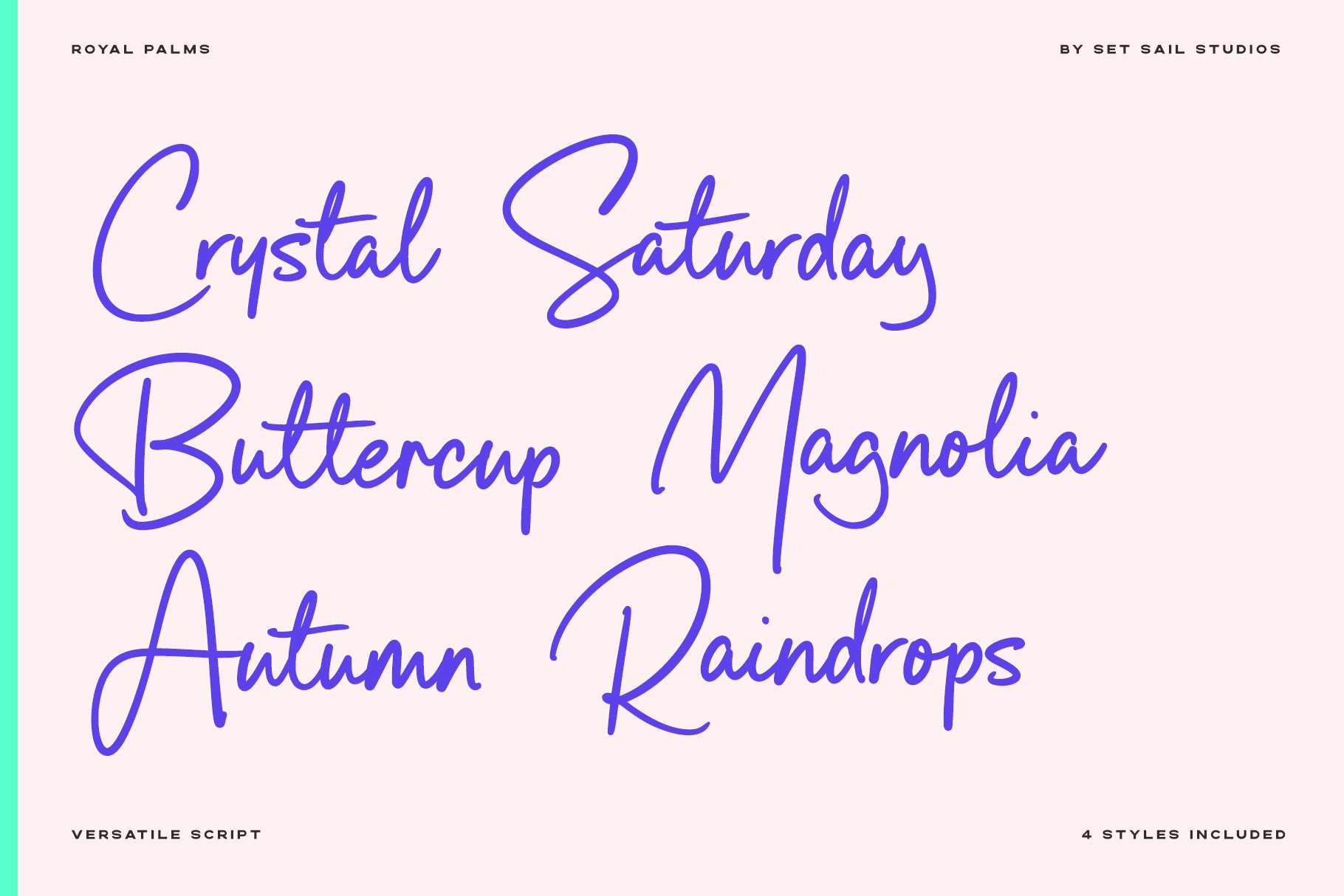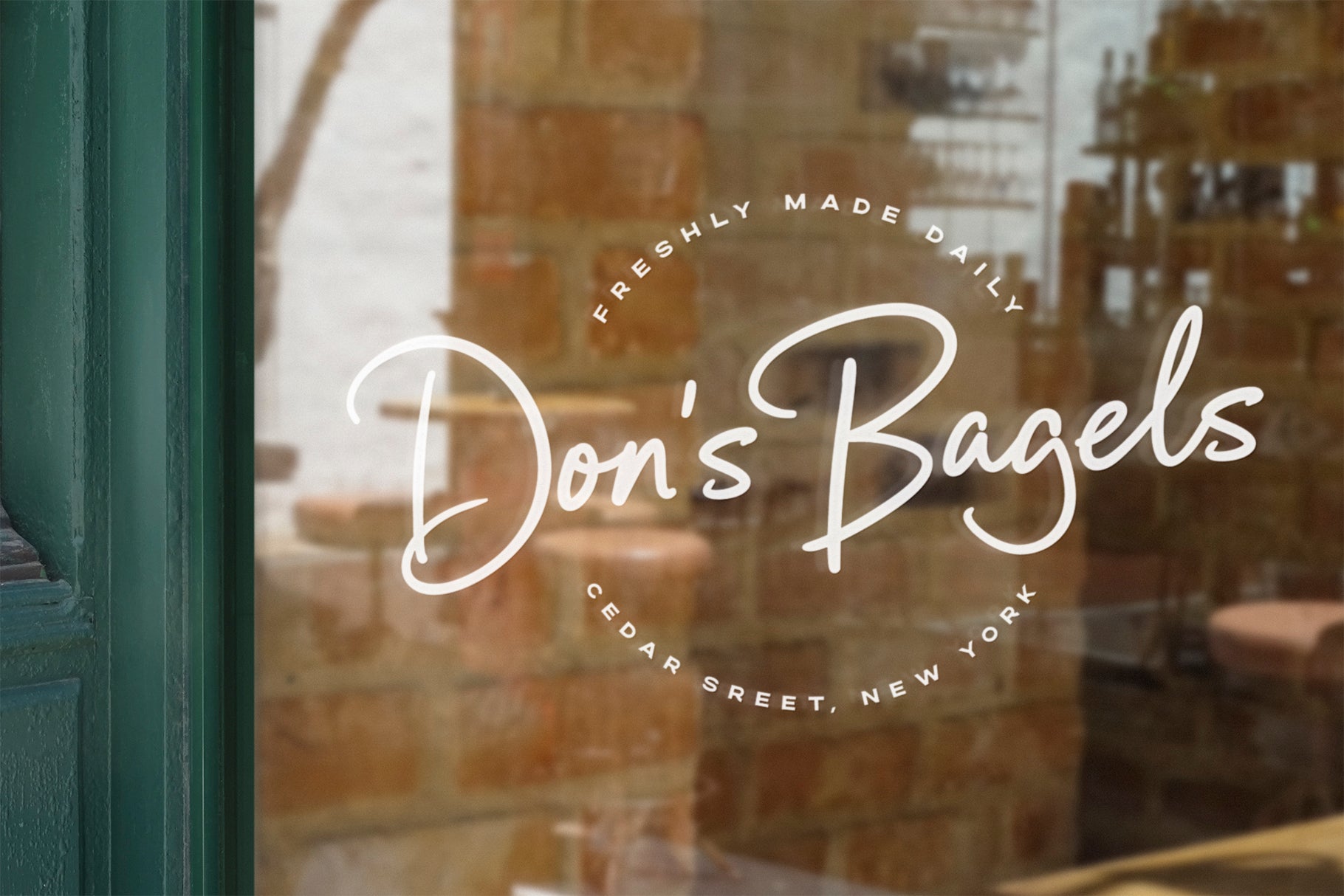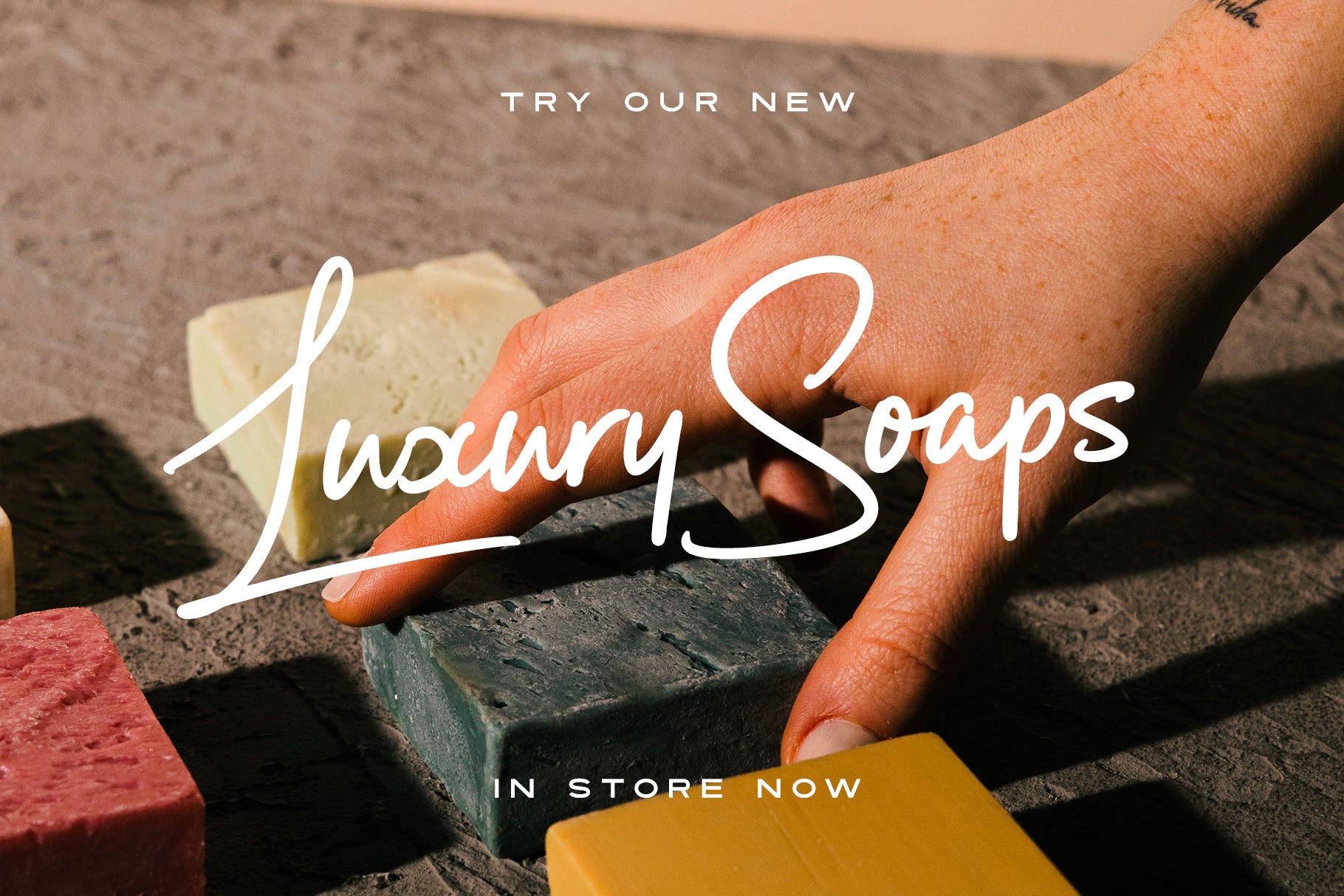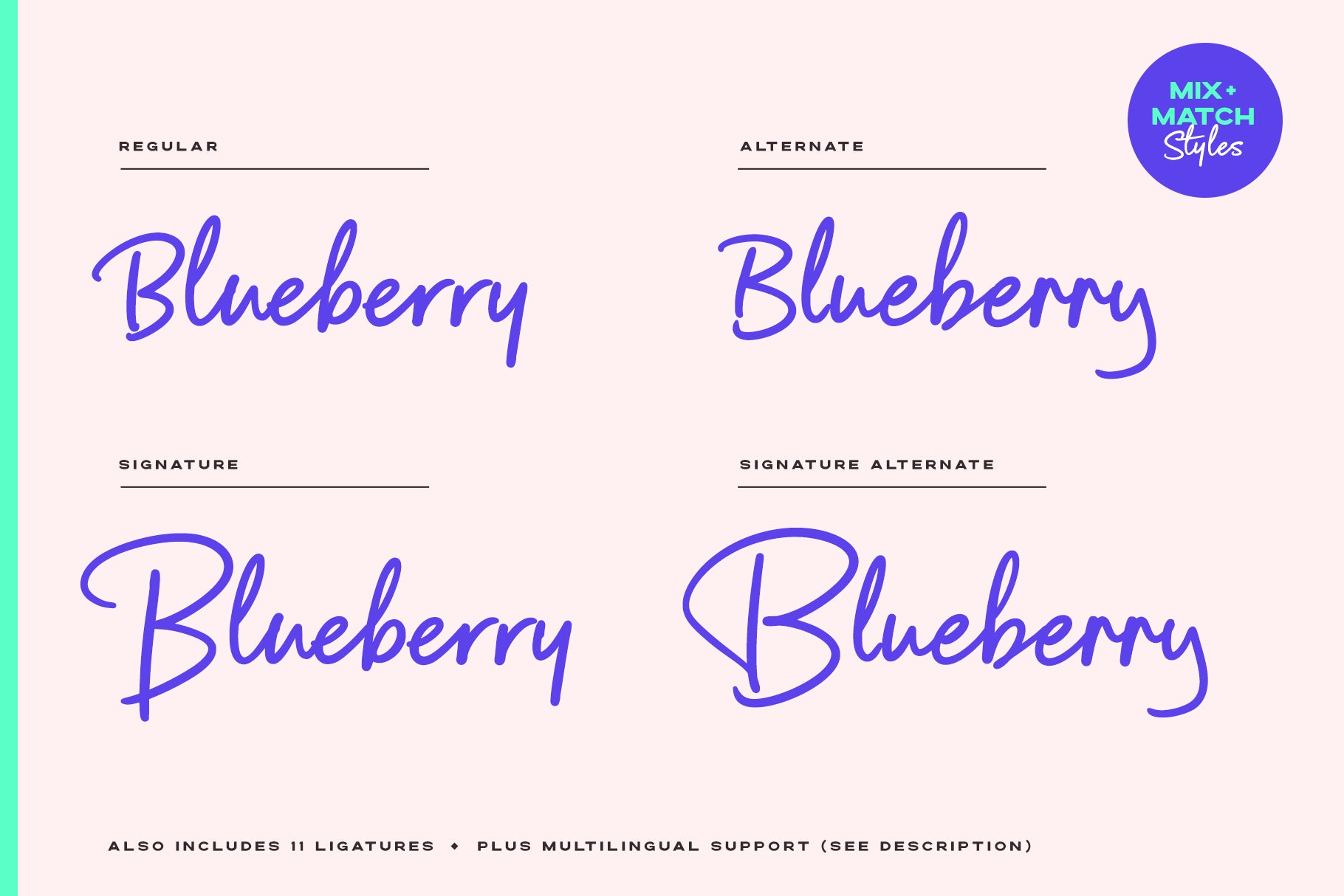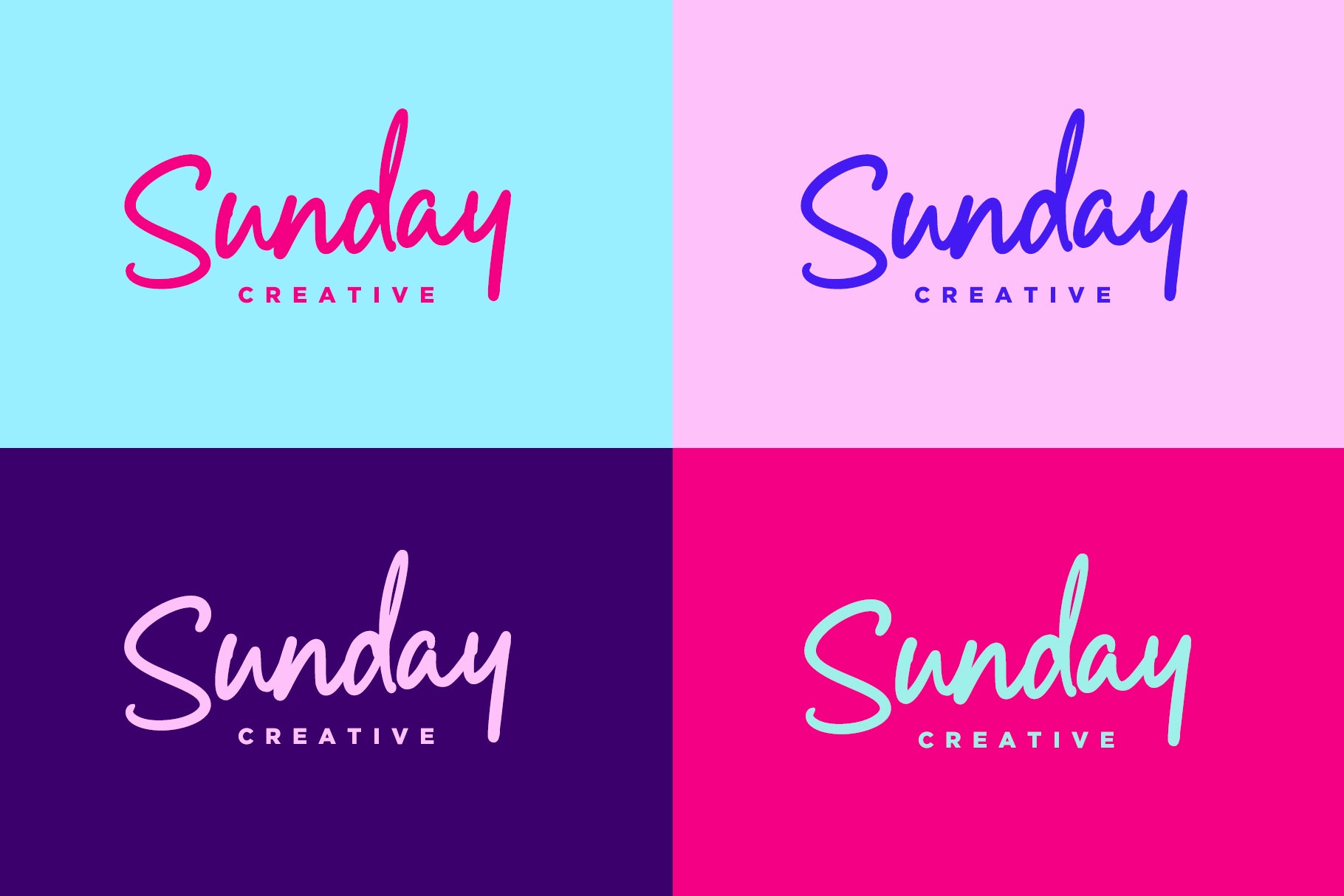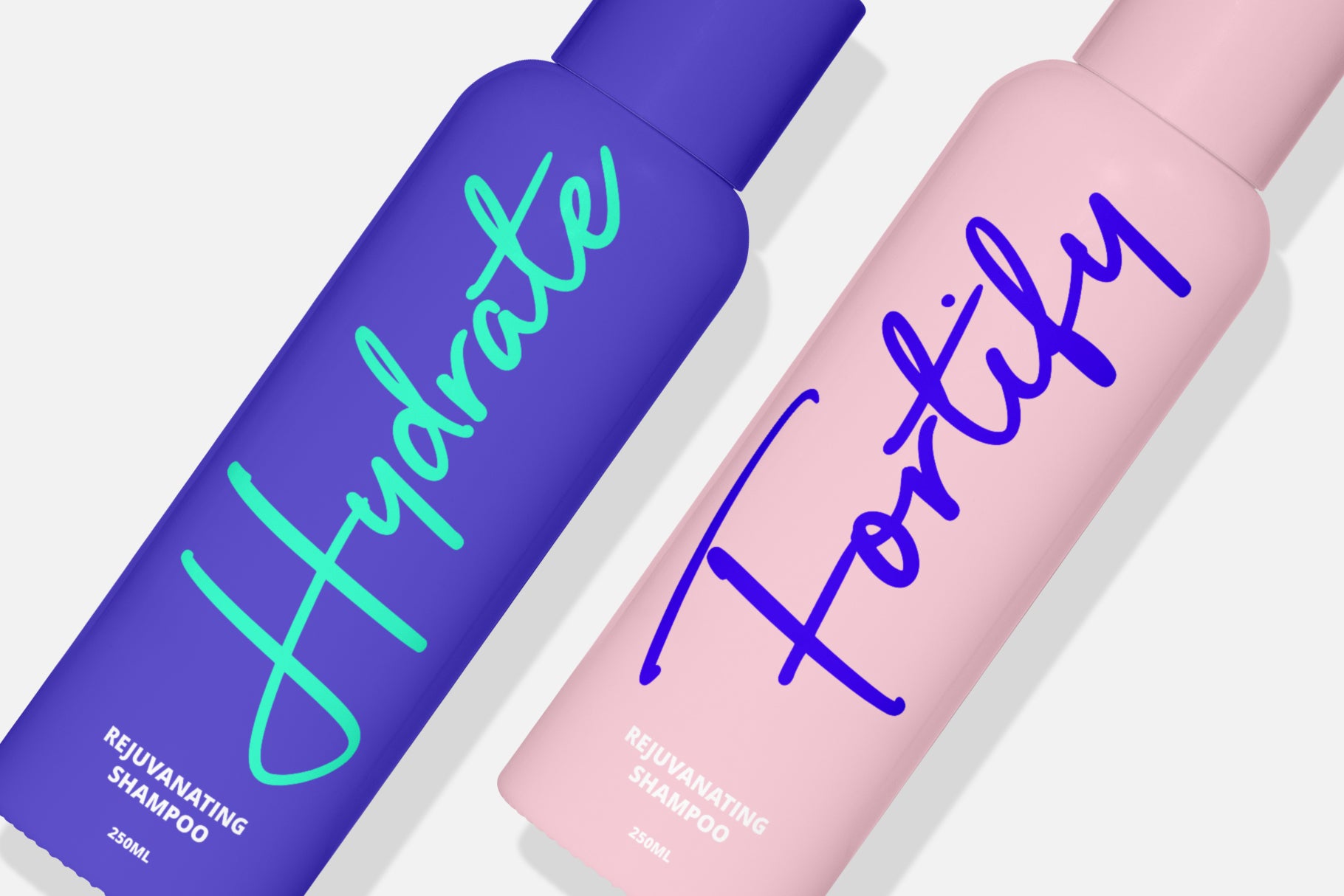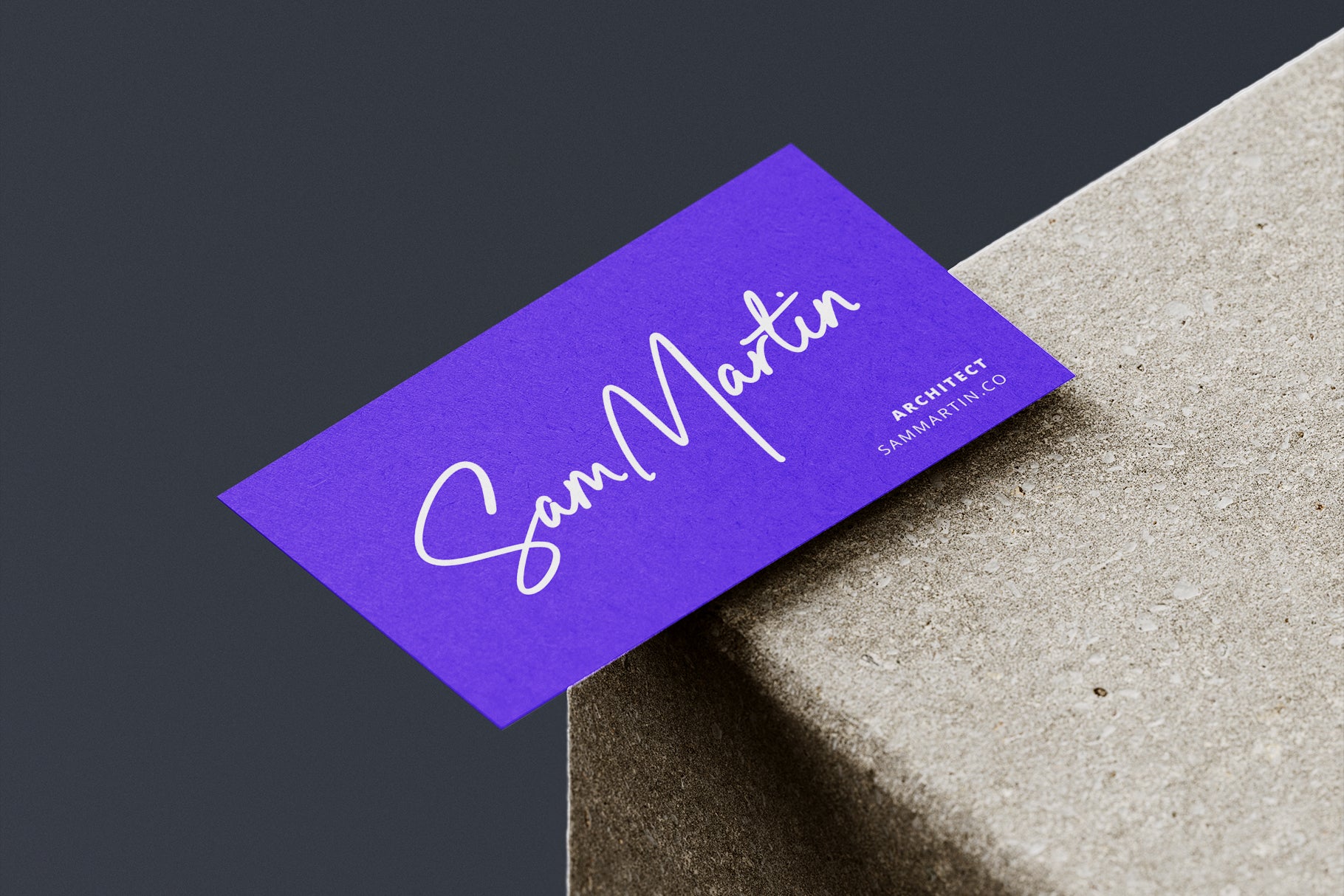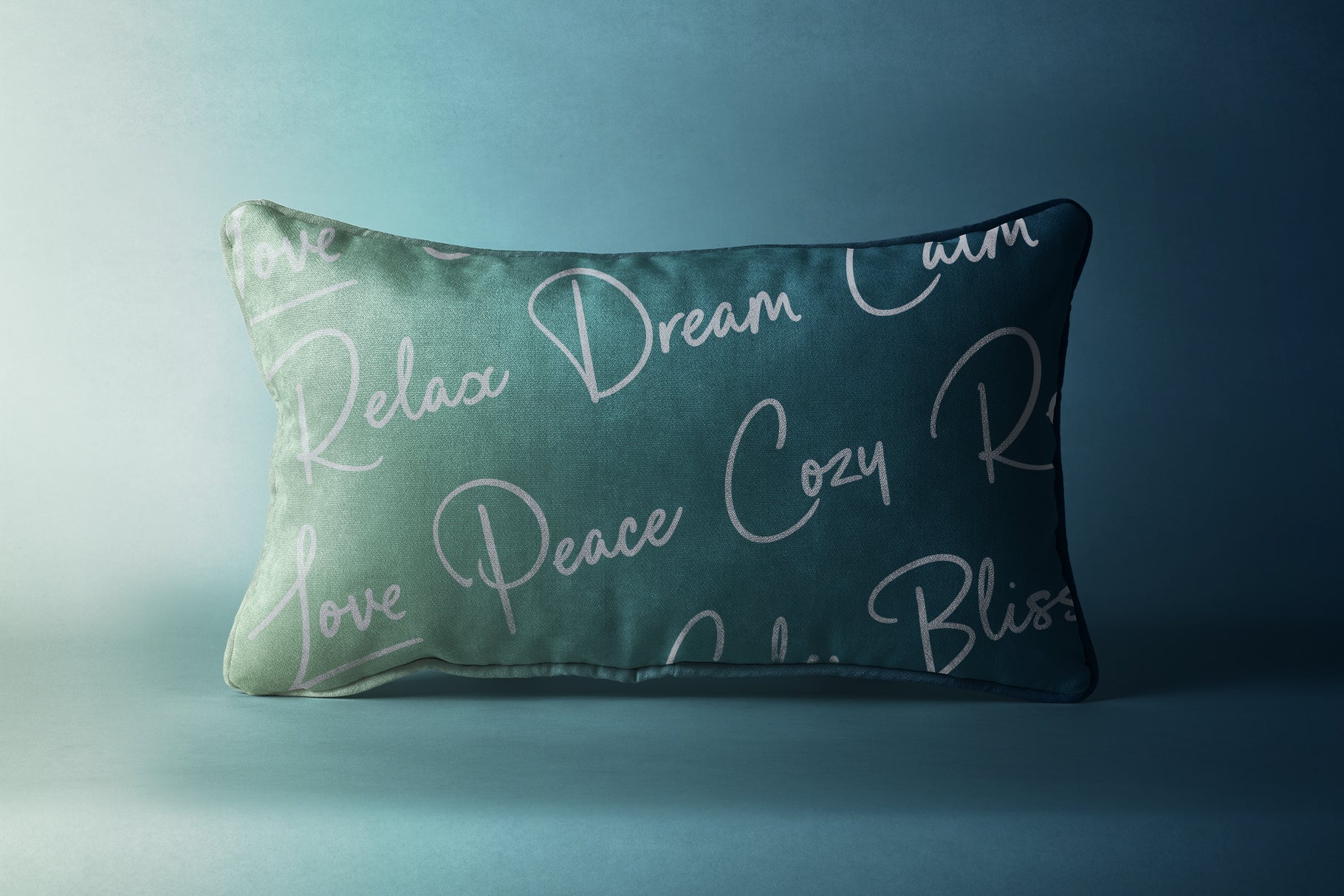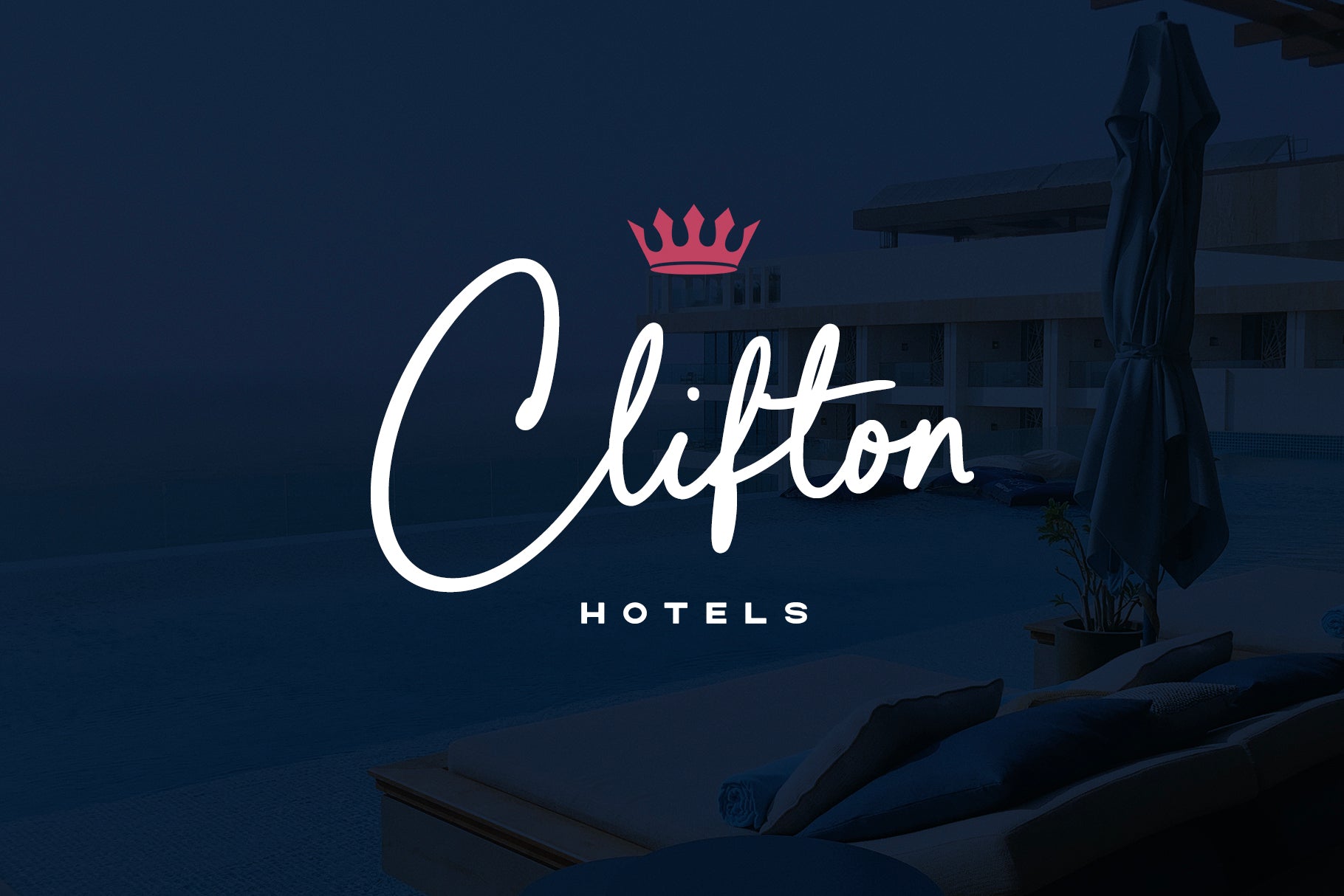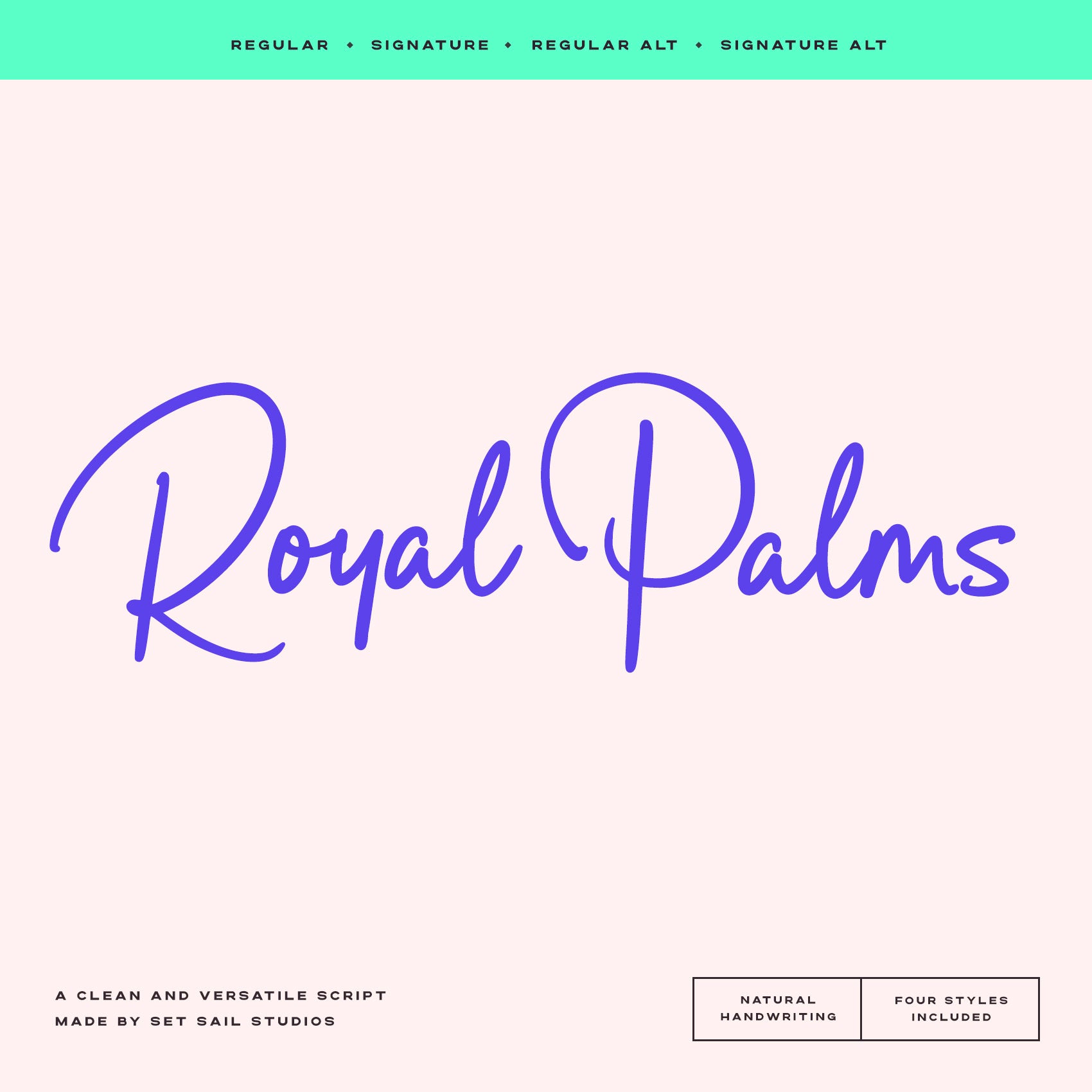
Royal Palms Font
Royal Palms Font is a clean and casual script font family by Set Sail Studios, featuring four styles: Signature and Regular, each with a full set of alternate characters. It supports multiple languages and includes standard ligatures, making it versatile for various design needs.